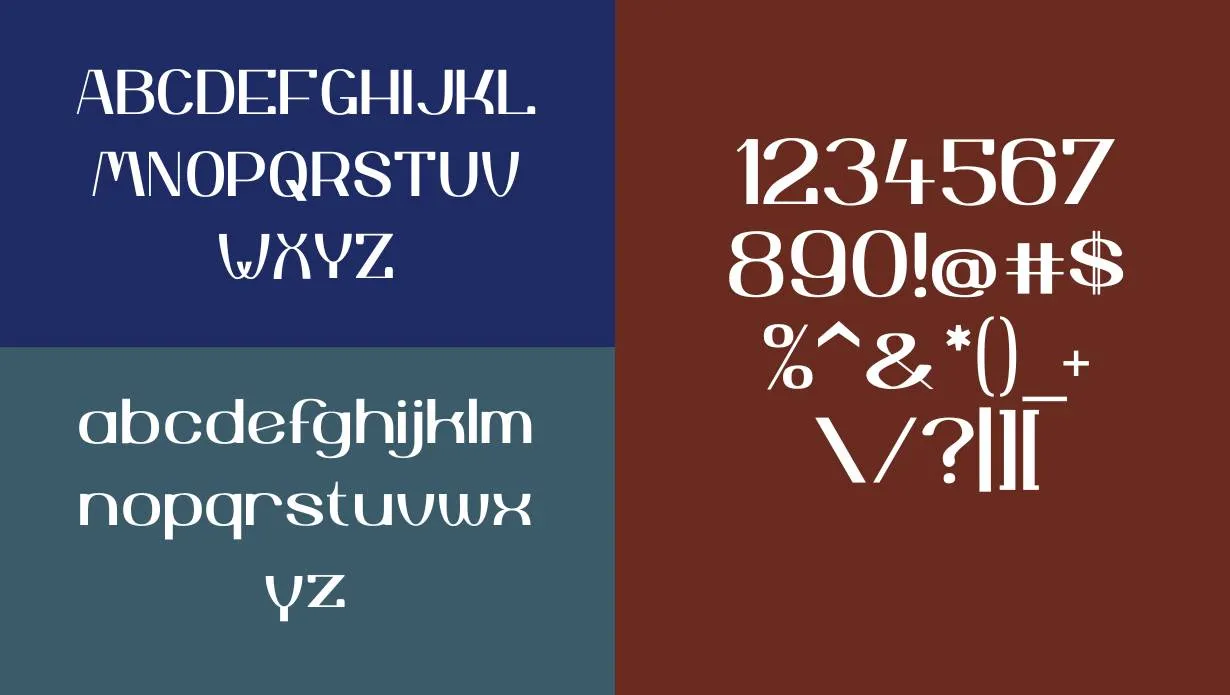
Yiggivoo Unicode Font is a bold, funny, and gorgeous display font that was created by Rozi and released by Twinletter along with both TTF and OTF formats. This funny and bold font is perfect for a kid-related project that can make it more cute, gorgeous, and attractive.
| Name | Yiggivoo Unicode Font |
| Designer | Peter Wiegel |